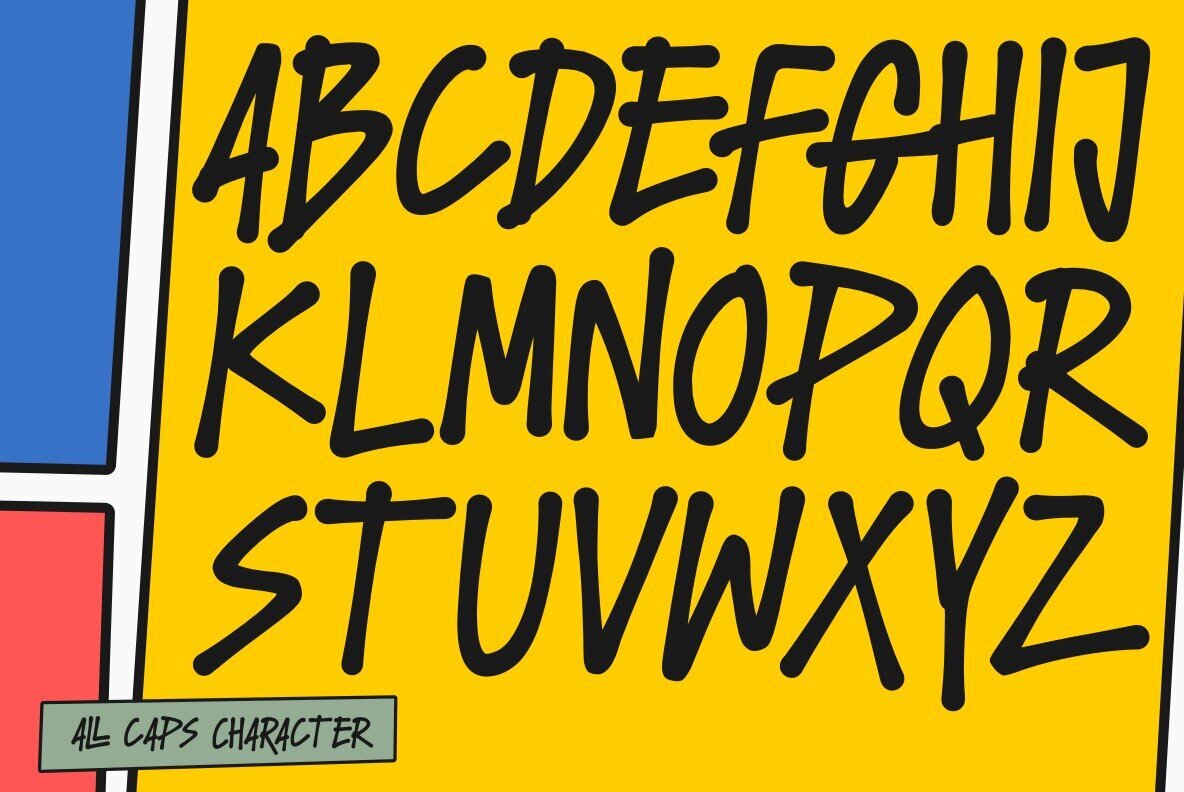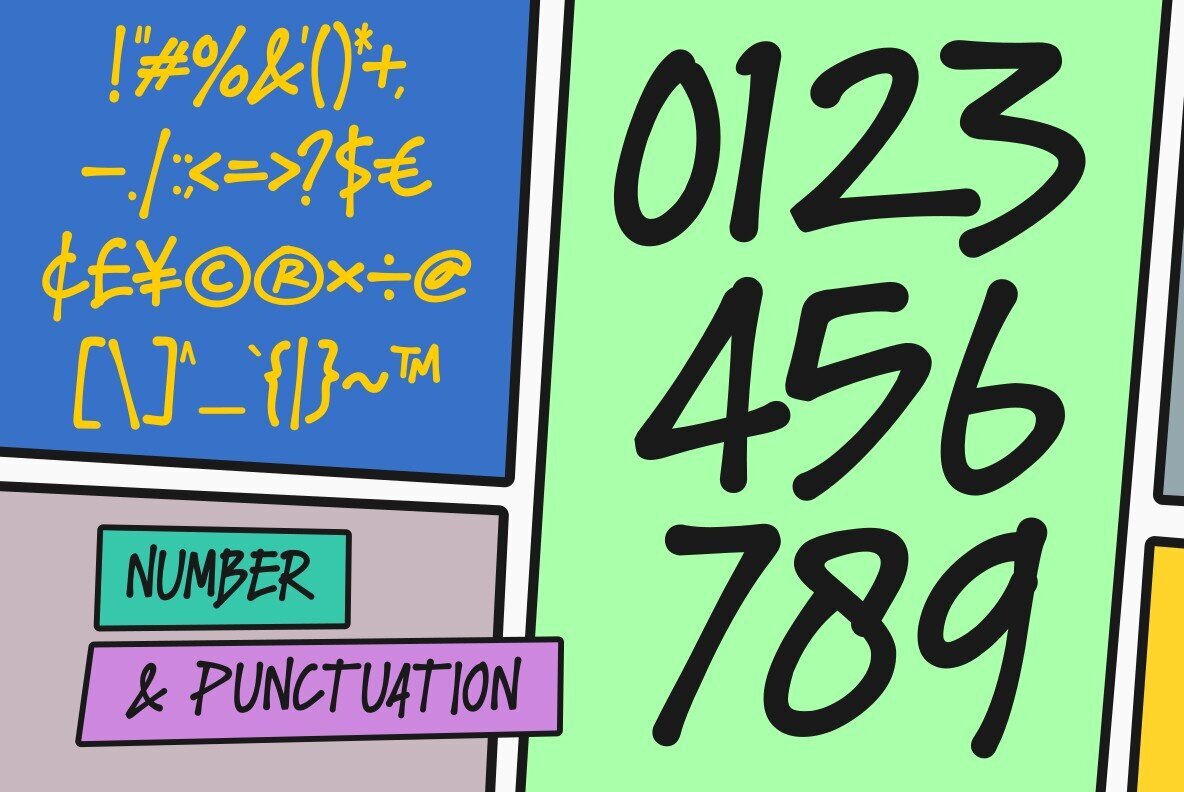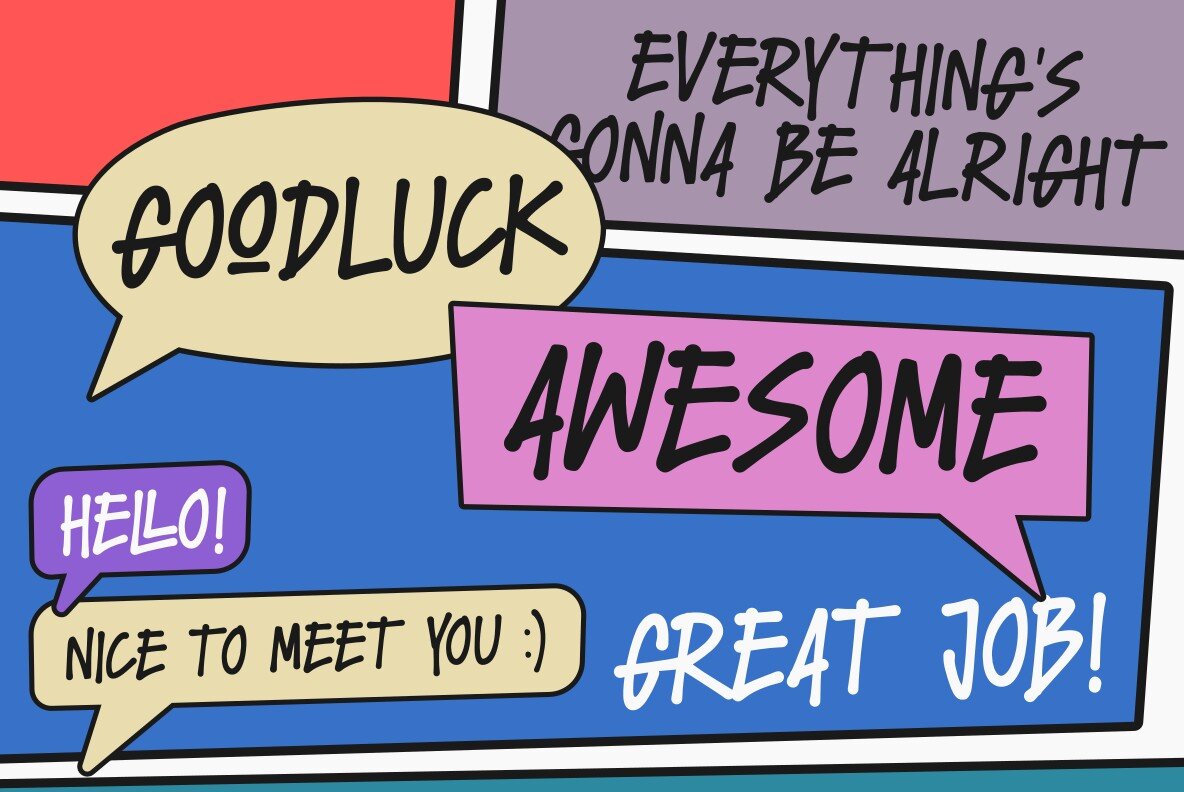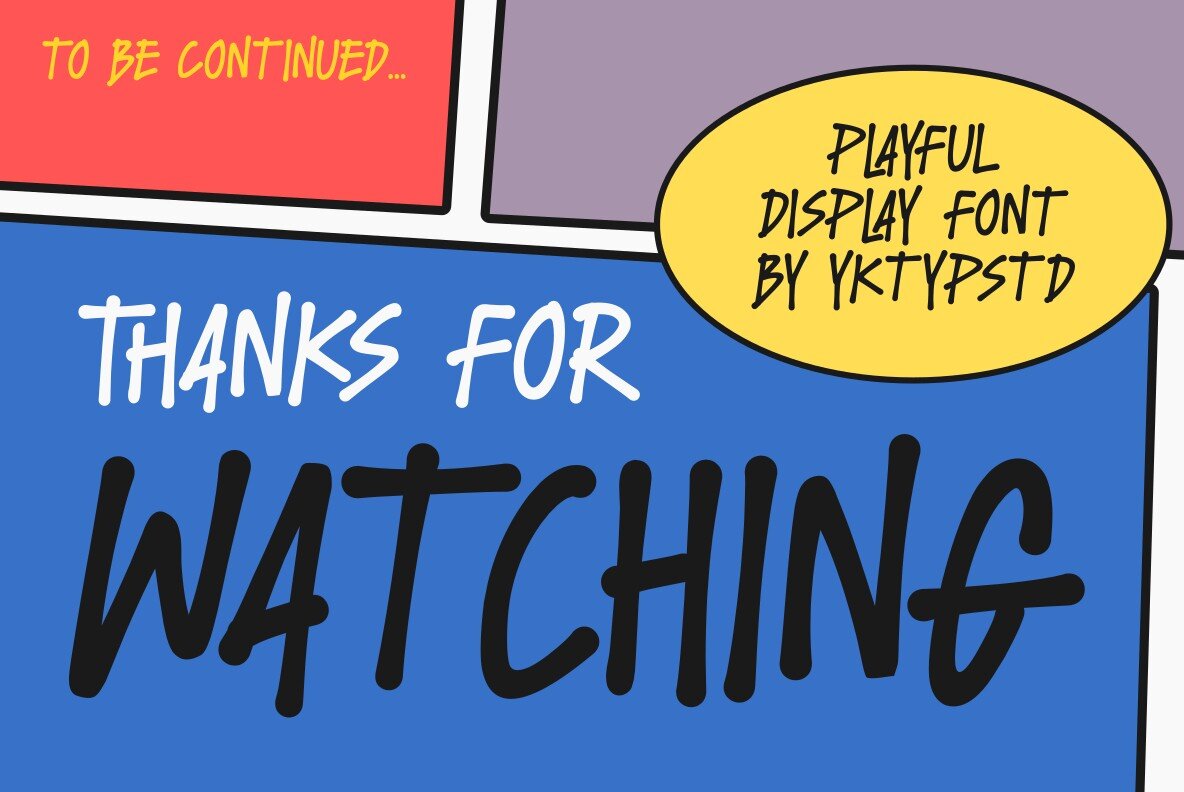
Grain Comic Font
Grain Comic Regular
Grain Comic is a dynamic display font that brings a whimsical, playful essence to your design projects. Its stylized design captures the lively spirit of cartoons and comics, offering a fresh perspective to creative endeavors. Ideal for comic-themed projects, this font adds a splash of joy to magazine covers, interactive games, or any design looking for a lively and cheerful feel.
With Grain Comic, your ordinary designs can transform into something vibrant and extraordinary. Whether you're looking to inject energy into your work or seeking a font that stands out, this font delivers a unique charm, enhancing the visual impact and engagement of your content.